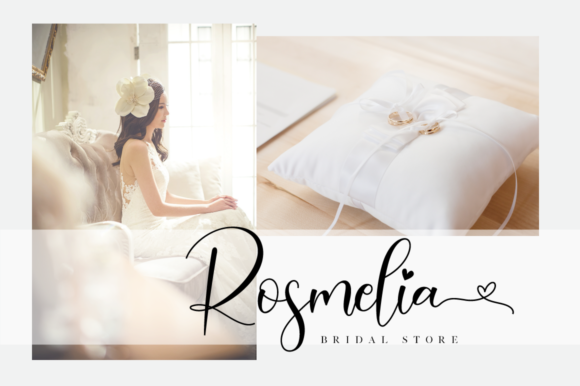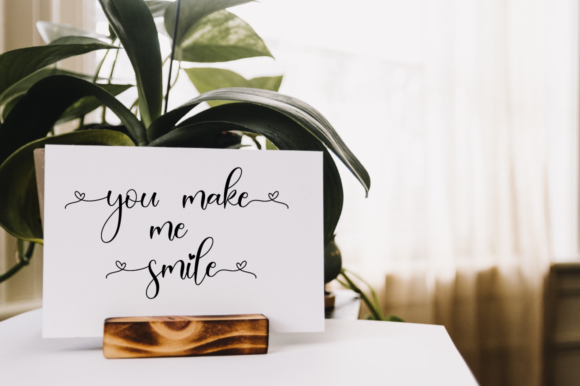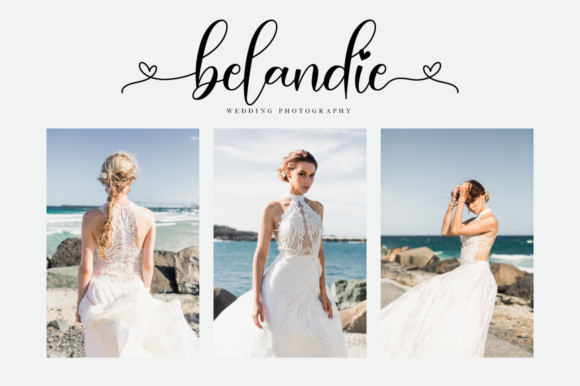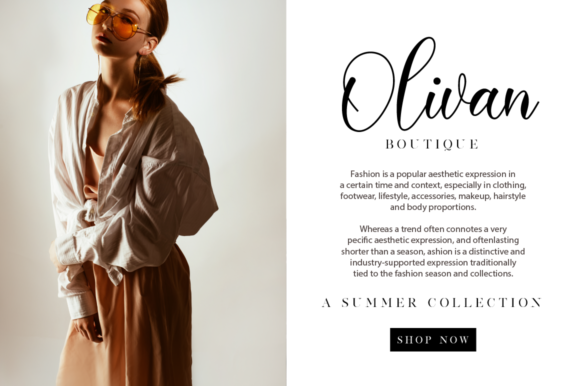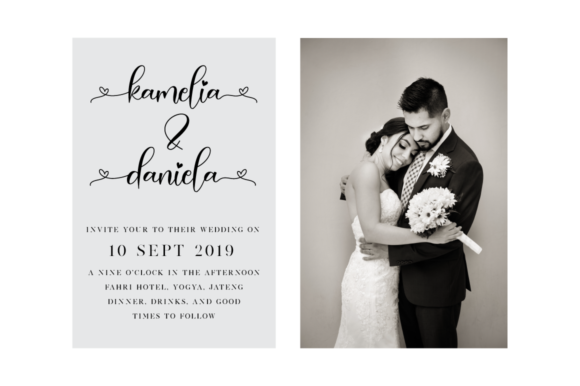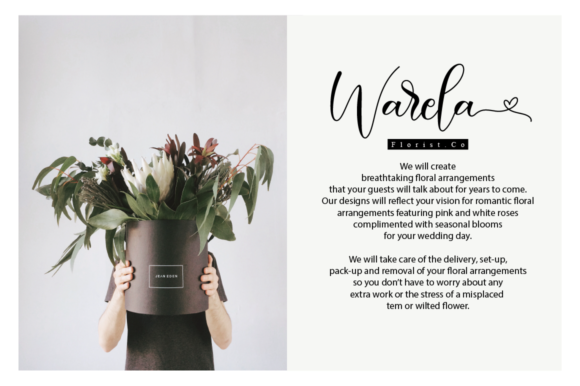
Introduction to Paisley Script Font
As a designer, there’s nothing quite like the thrill of discovering a new font that perfectly captures the essence of your creative vision. For me, it was a late-night search for the perfect script font to elevate my branding project. And then, I stumbled upon the stunning Paisley Script Font – a game-changer that brought my design to life.
With its elegant, modern look and feel, the Paisley Script Font has become a go-to resource for designers seeking high-quality typography for their creative projects. Whether you’re working on a personal branding project, a marketing campaign, or a website design, this versatile font is sure to make a lasting impression. And the best part? It’s available for a free download, complete with a transparent background for seamless integration into your design.
Key Features of Paisley Script Font
- High-quality design resource ideal for creative projects, offering a beautiful and elegant touch.
- Comes with a transparent background, allowing for seamless integration with any design or background.
- Features a classic, cursive script style with subtle flourishes, adding a touch of sophistication to any design.
- Designed to be highly legible, with clear and distinct letterforms that are easy to read at various font sizes.
Honest Review: Paisley Script Font
I recently stumbled upon the Paisley Script Font and I must say it’s a fantastic design resource. With its elegant and flowing design, it’s perfect for adding a touch of sophistication to your creative project.
- High quality and detailed design, great for print and digital projects.
- Comes with a transparent background, making it easy to use in various design scenarios.
One thing to note is that the font may not be suitable for all projects, especially those requiring a bold and modern look. ⚠️ However, for projects that require a more elegant and refined design, Paisley Script Font is an excellent choice.
- May not be ideal for projects requiring a bold and modern look.
- Some users may find the font’s flowing design a bit too ornate.
Overall, I’m impressed with the Paisley Script Font and I would highly recommend it for any design project requiring a touch of elegance and sophistication. With its high quality design and transparent background, it’s a versatile and convenient design resource to have in your collection.
Paisley Script Font
Tips for Getting the Most Out of Paisley Script Font
To get the most out of the Paisley Script Font, use it sparingly and strategically. Pair it with simple backgrounds and bold colors to make it stand out. You can also use it to create a focal point in your design.
Common Use Cases for Paisley Script Font
The Paisley Script Font is ideal for wedding invitations, baby shower invitations, and other creative projects that require a touch of elegance. It’s also great for branding and marketing materials, such as logos and business cards.